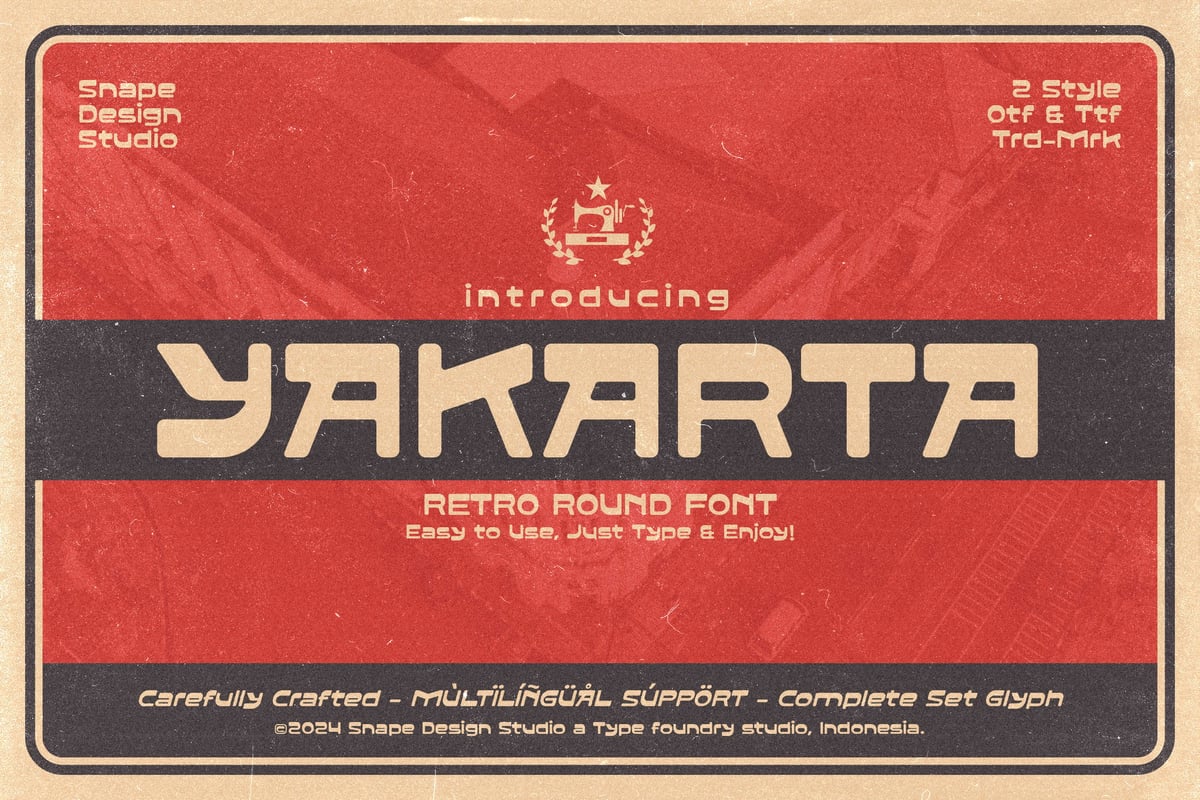
Yakarta - Retro Round Font
Transform your designs with Yakarta's timeless retro charm and perfectly rounded aesthetic. This vintage-inspired sans serif font captures the essence of mid-century typography while delivering modern versatility. Yakarta channels nostalgic charm through its carefully crafted rounded letterforms, bringing classic elegance to contemporary projects and evoking the sophisticated aesthetics of bygone eras. Perfect for designers seeking to add a distinctive nostalgic touch with a fresh, modern twist ...